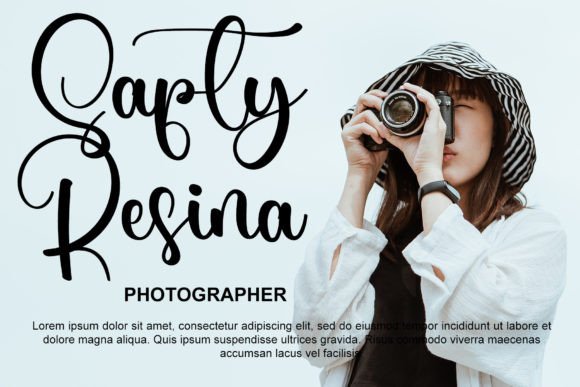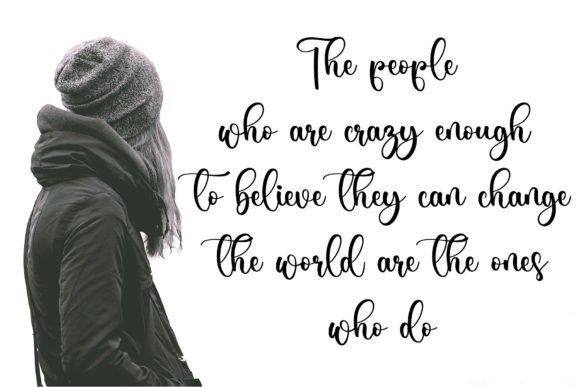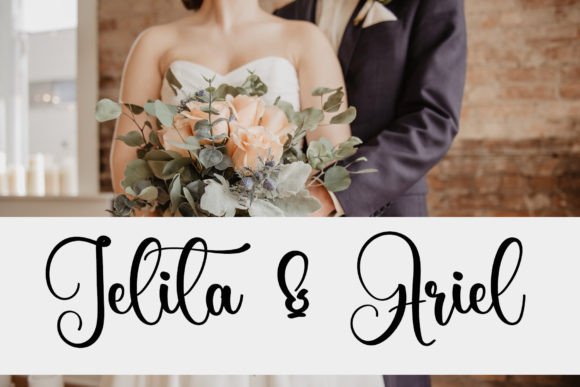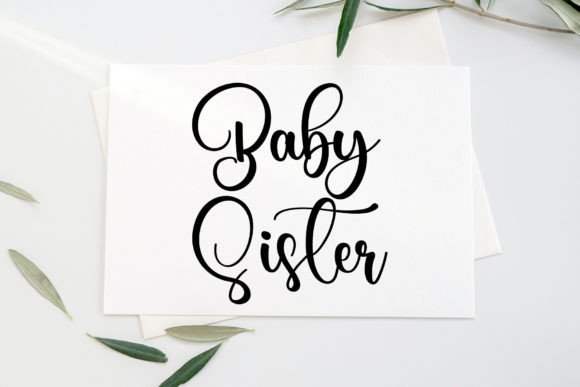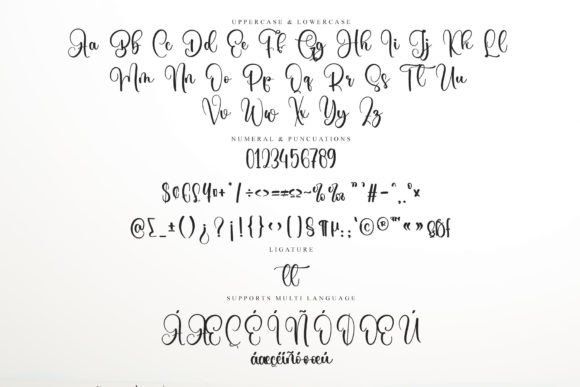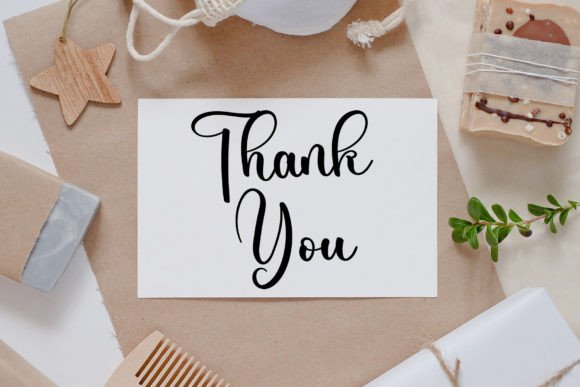
The Delight Font: Elevating Your Designs with Timeless Elegance
Have you ever been in the middle of a design project, and suddenly, you’re stuck on finding the perfect font? I recall a recent experience where I was working on a branding project for a luxury client, and my go-to fonts just weren’t cutting it. That’s when I stumbled upon the Delight font, and it completely transformed my design. In this article, we’ll dive into the world of Delight, a stylish handwritten font that’s sure to become your new favorite.
A Personal Review: What I Love About Delight
As a designer, I’m always on the lookout for fonts that can bring a touch of sophistication to my projects. Delight certainly delivers ✨. Here are some of the things I love about this beautiful font:
- ✅ Contemporary atmosphere: Delight has a modern feel that works well with a variety of design styles.
- ✅ Impeccable form: The font’s classic calligraphy inspiration shines through in its elegant letterforms.
- ✅ Balanced and varied: Delight’s range of glyphs and stylistic alternates make it versatile and interesting to use.
- ✅ Ease of use: This font is easy to read and works well for both headings and body text.
While Delight is an exceptional font, there are a few minor things to keep in mind ⚠️:
- 🤔 Limited use in very small sizes: As with many script fonts, Delight may not be the best choice for very small text sizes, as some details may get lost.
- ⚠️ Requires attention to kerning: As with any font, it’s essential to pay attention to kerning to ensure the best results.
Exploring OpenType Features, Glyphs, and Stylistic Alternates
One of the standout features of Delight is its range of OpenType features, glyphs, and stylistic alternates. These allow you to customize your text and add unique touches to your designs. Some of the features you can expect to find in Delight include:
- Stylistic alternates: Swappable letterforms that allow for a range of variations.
- Glyphs: Additional characters and symbols that can be used to add visual interest.
- OpenType features: Such as ligatures, which can be used to create more elegant text.
The Story Behind Delight: Designer Inspiration
Delight was created with the goal of bringing timeless elegance to modern design. Inspired by classic calligraphy, the font’s designer aimed to create a beautiful, versatile font that would work well in a variety of contexts. With its impeccable form and balanced design, Delight is sure to become a favorite among designers and crafters alike.
| Author | YanStudio |
| What is Delight font best used for? | Delight is a versatile font that works well for a range of design projects, including branding, packaging, and digital design. |
| Does Delight support OpenType features? | Yes, Delight supports a range of OpenType features, including stylistic alternates, glyphs, and ligatures. |